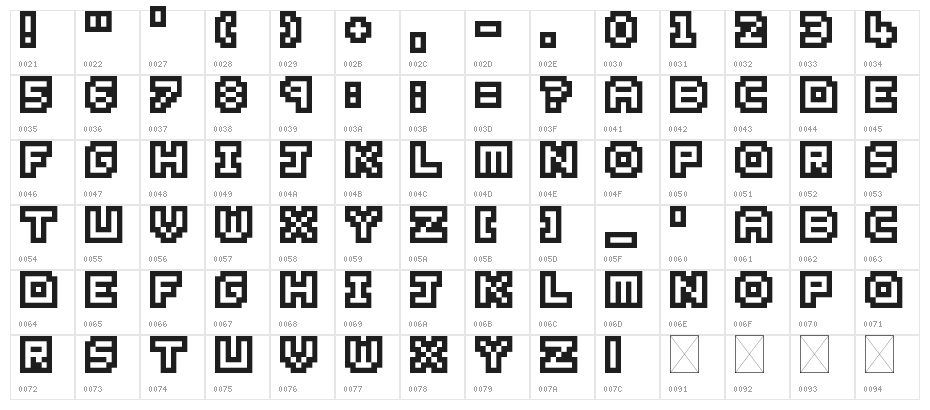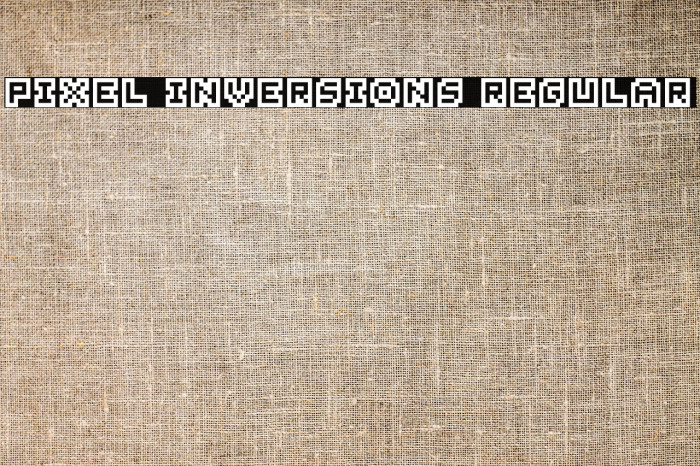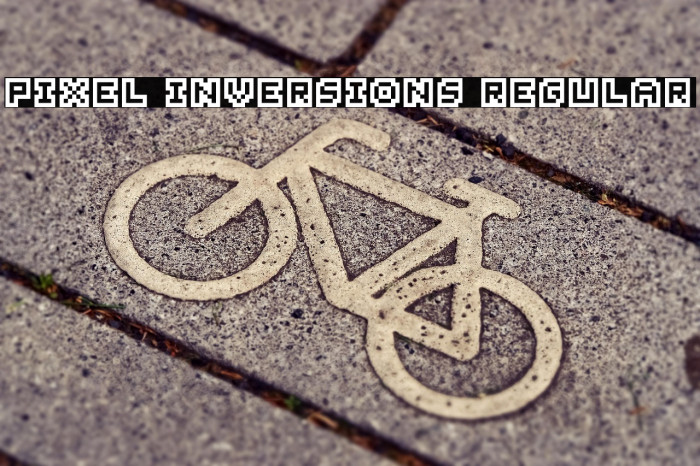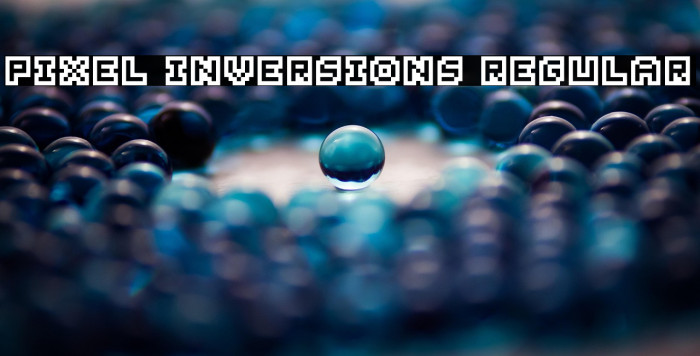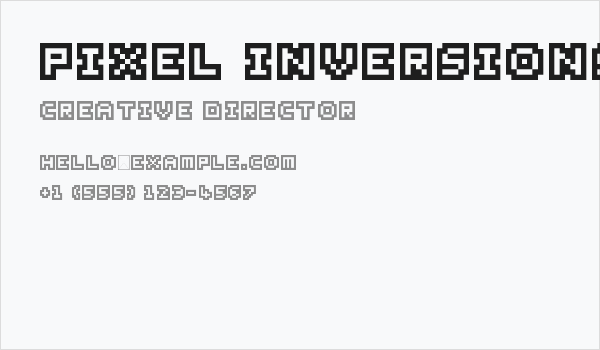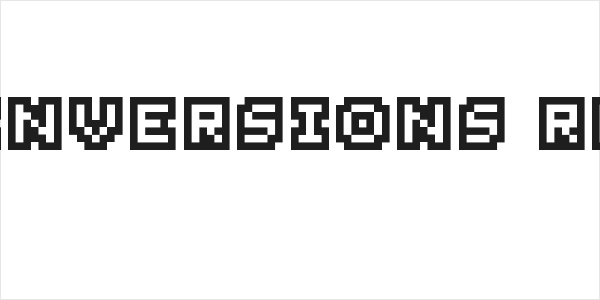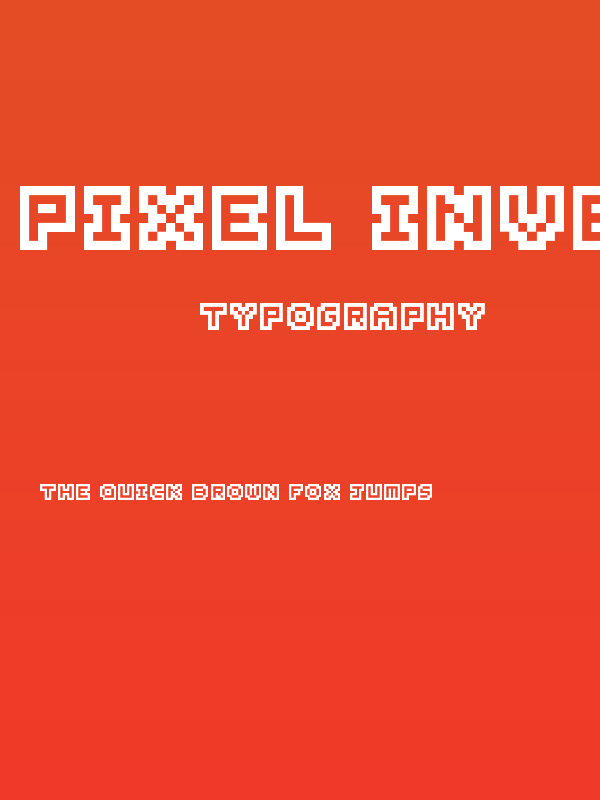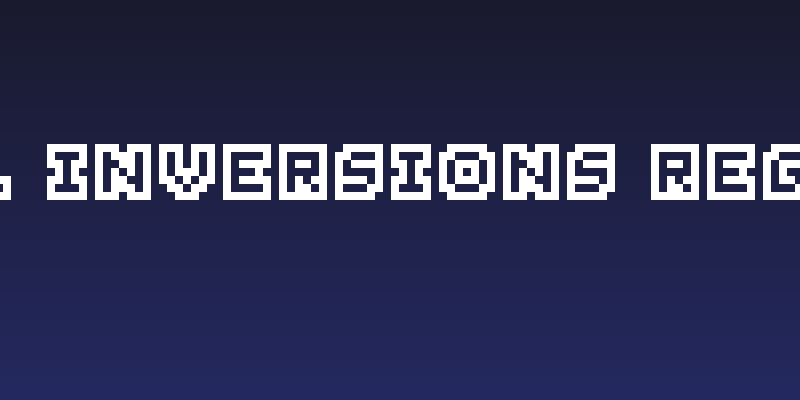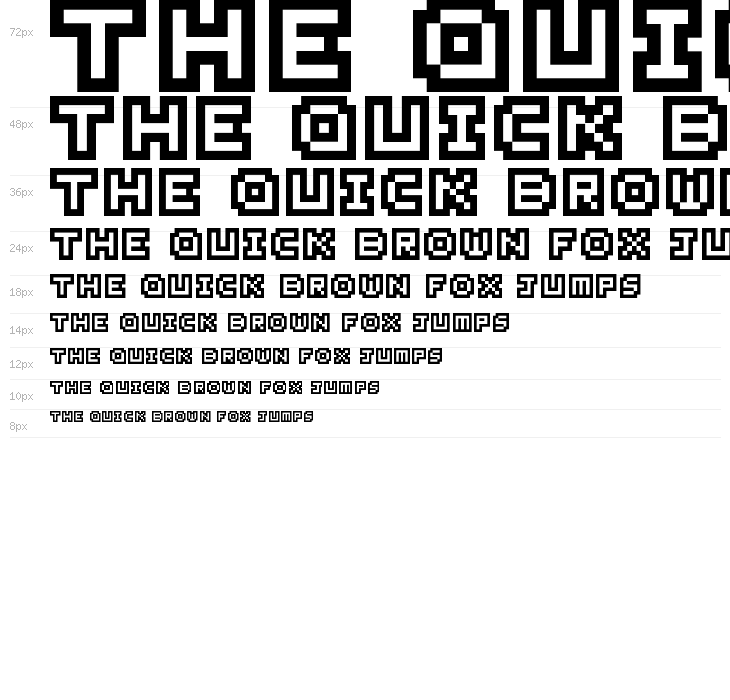
Pixel Inversions Regular Font
| Stile generale | Retro, Digital |
| Progetti proposti | Ideal for retro-themed video games, digital art, posters, and any project seeking a nostalgic or digital aesthetic. |